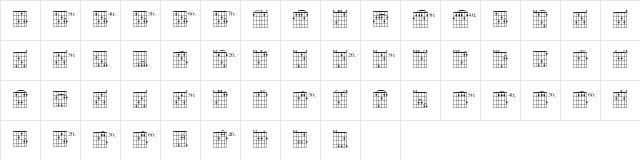
FretsC Regular
Design Context for FretsC
FretsC is a composed and adaptable typeface that performs quietly and consistently across a wide range of design contexts.